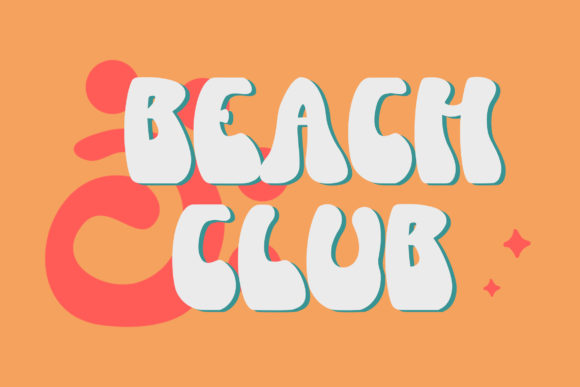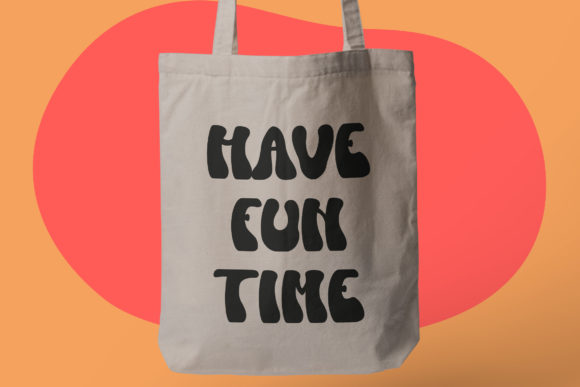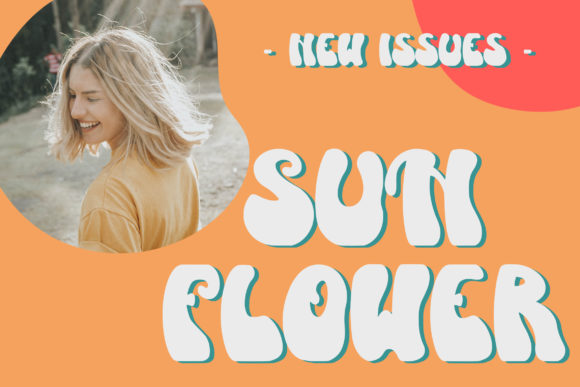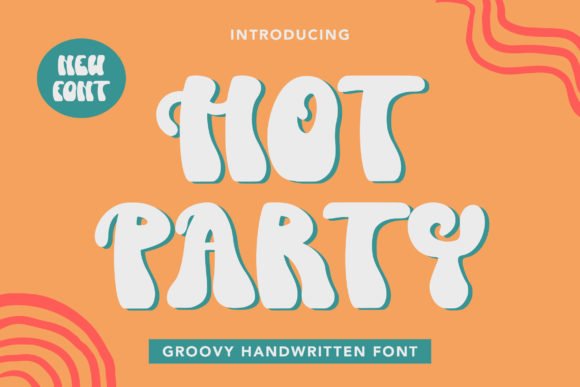
Introduction to Hot Party Font
Hot Party is a cool and groovy looking display font, made with various characters.
It is perfect for branding projects, logos, wedding designs, media posts, advertisements, product packaging, product designs, and more Hot Party is PUA encoded which means you can access all of the glyphs and swashes with ease.